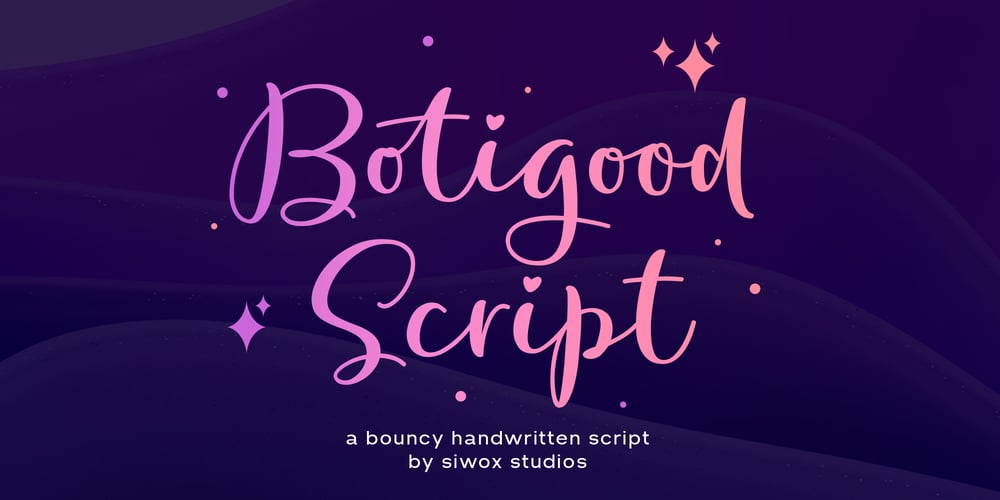
Botigood Script Font Family was designed by Rizaldi Wandani and published by Siwox Studios. Botigood Script contains 1 styles and family package options. Botigood Script font feels equally charming and elegant. It looks stunning on wedding invitations, thank you cards, quotes, greeting cards, logos, business cards and every other design which needs a handwritten touch. It is also PUA encoded which means you can access all of the glyphs and swashes with ease!